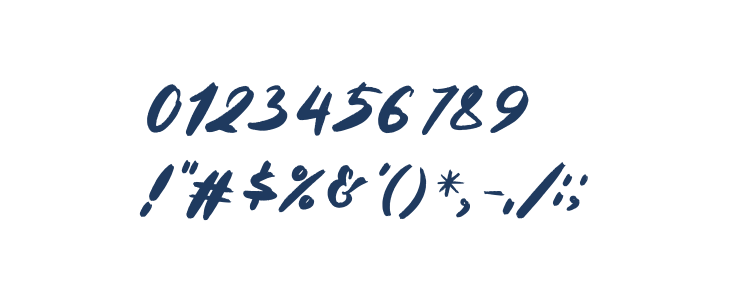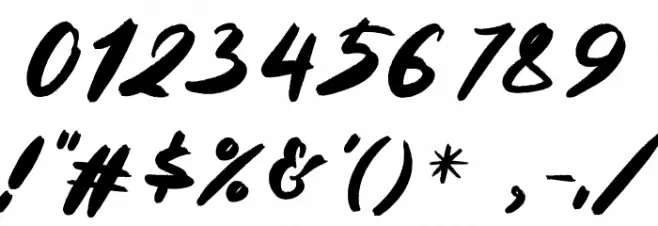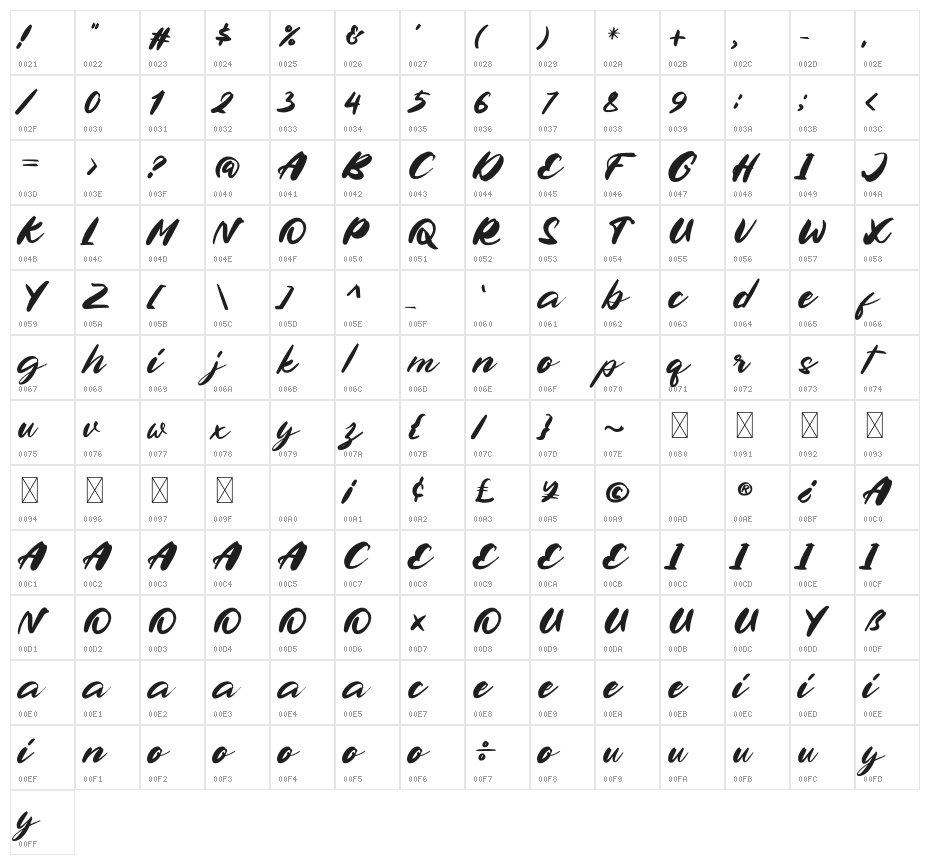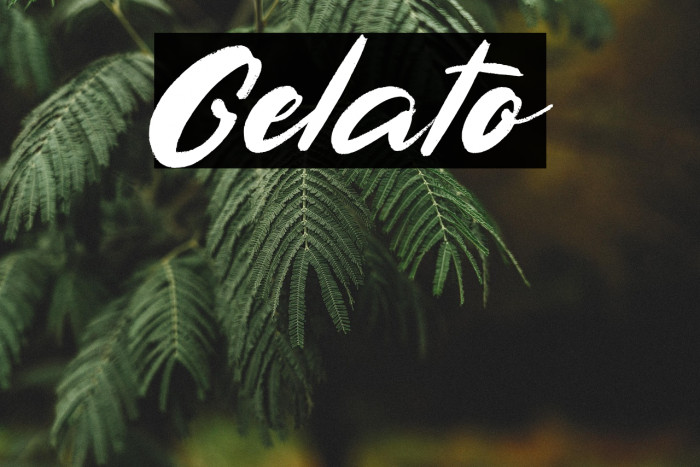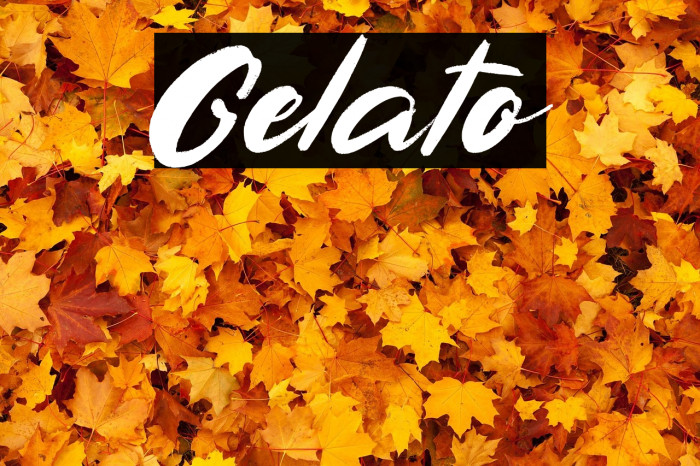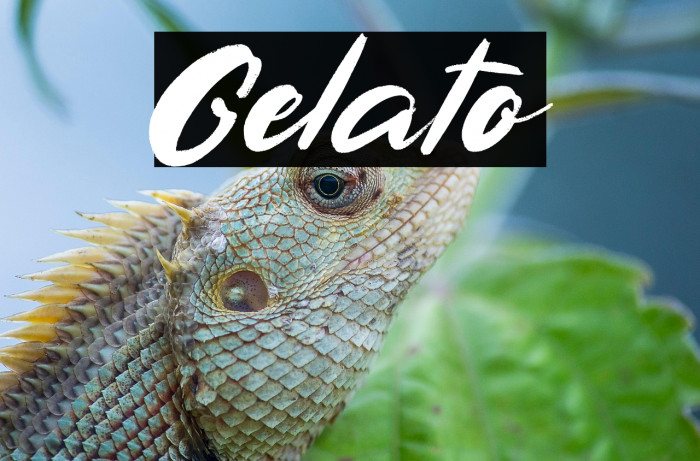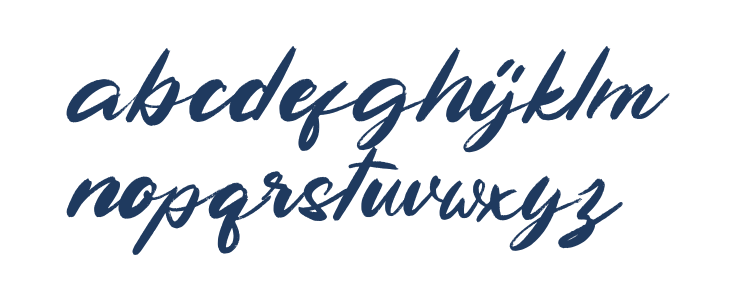
Gelato Font
Gelato Description
This font exudes a lively and energetic style, characterized by its bold, flowing script that mimics the fluidity of handwriting. The letters are connected in a cursive manner, giving it a seamless and dynamic appearance. The strokes are thick and consistent, providing a strong visual impact. The uppercase letters are slightly more angular, while the lowercase letters maintain a smooth, rounded form. This font is ideal for creating a sense of movement and elegance, making it suitable for creative and expressive projects. The numbers and special characters maintain the same bold and fluid style, ensuring consistency across all elements.
Use CaseLogos, Headlines, Invitations
Proposed ProjectsIdeal for branding, invitations, greeting cards, and creative projects that require a personal touch.